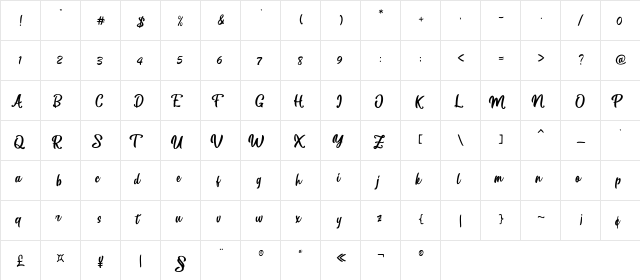
Betharie Regular
| Foundry | Fajriadi |
| Designer | Fajriadi |
Design Context for Betharie Typeface
Betharie is a composed and adaptable typeface that performs quietly and consistently across a wide range of design contexts.